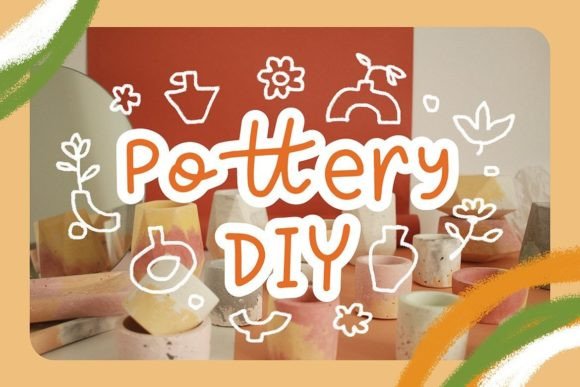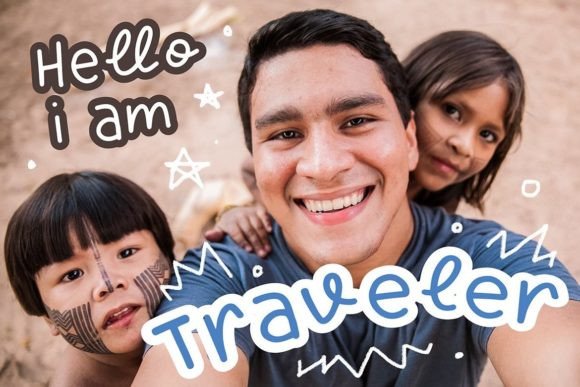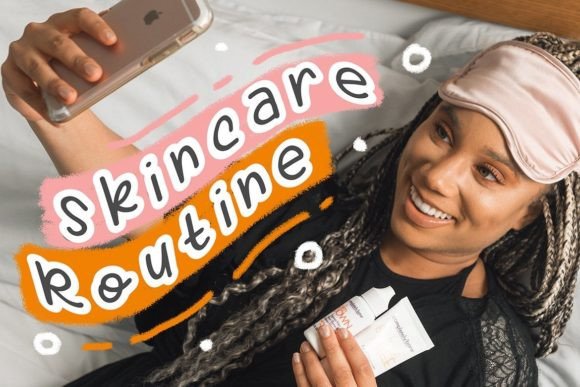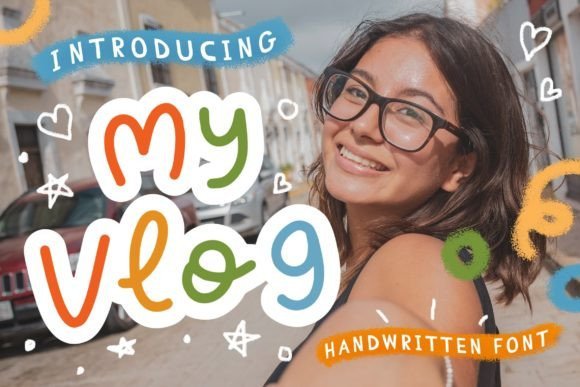
Introduction to My Vlog Font
My Vlog is a cute and quirky handwritten font with an incredibly friendly feel.
Whether you’re looking for fonts for Instagram or handwritten scripts for DIY projects, Raincoat will turn any creative idea into a true piece of art This font is PUA encoded which means you can access all of the amazing glyphs and ligatures with ease.
My Vlog Font offers exceptional quality and versatility, making it a valuable addition to your design toolkit. Whether you’re creating for personal projects or commercial use, My Vlog Font delivers professional results.